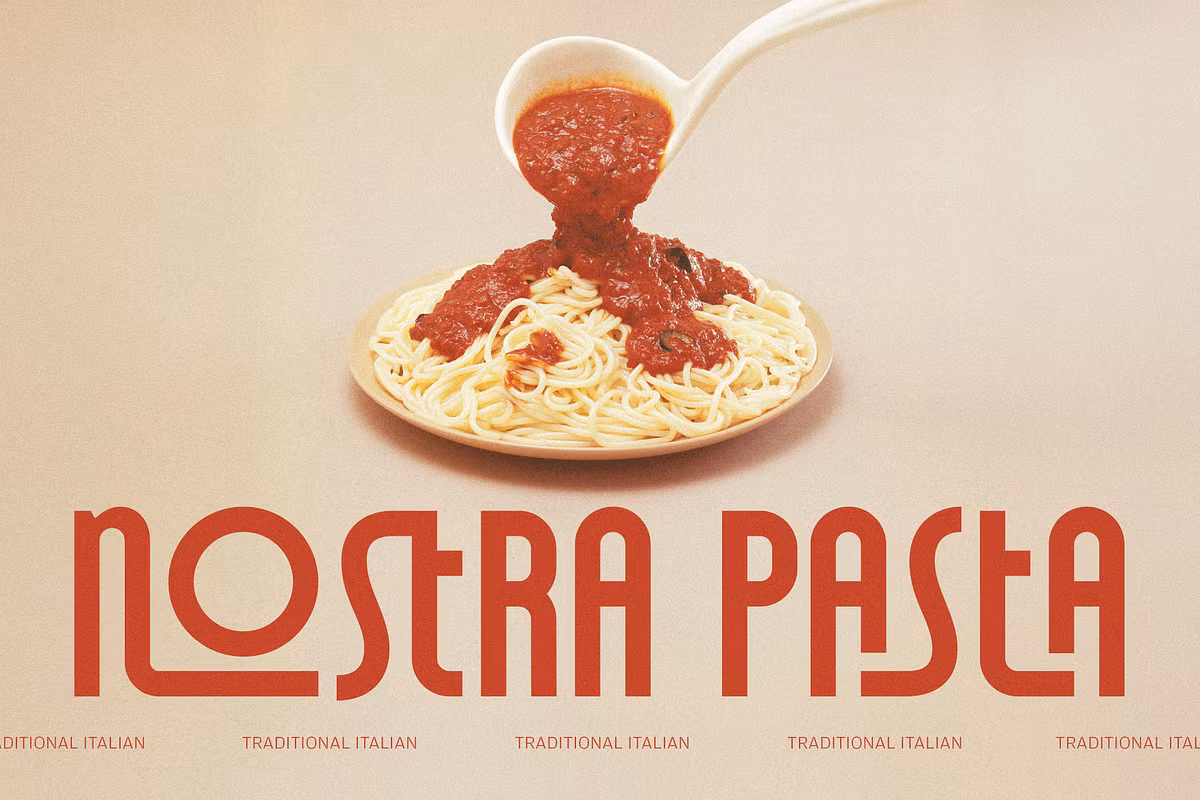
Sweet Lemonade Display Ligature Font
Sweet Lemonade Display Ligature Font: Retro-Inspired Typeface with 125+ Ligatures
The Sweet Lemonade font is a really cool, bold font that is perfect for making your designs pop. It’s like a fun, lively friend that adds a bit of nostalgia to your work. This font is great for lots of different projects, like posters, signs, and even just regular old documents. One of the best things about Sweet Lemonade is that it has a ton of special ligatures – over 125 of them! – which means you can make your words and letters look really unique and eye-catching.
It’s like having a big box of toys to play with, and you can use them to create all sorts of fun, expressive designs that will grab people’s attention. Whether you’re going for a retro vibe or just want to add a little excitement to your work, Sweet Lemonade is a great choice. It’s a modern font with a playful spirit, and it’s sure to bring a smile to people’s faces. So why not give it a try and see what kind of cool things you can create with Sweet Lemonade?
Example of Sweet Lemonade font in use
Example showcasing the Sweet Lemonade font style.
The style of Sweet Lemonade is really cool, it’s like a mix of old and new. The letters are big and bold, which makes them feel full of energy and excitement. This font has a classic look, but it’s also fresh and modern, so it works well in lots of different design projects.
Sweet Lemonade is a great pick for projects that need to feel young and fun. It’s got a special something that makes text look really cool. You can use it to make old-style posters or new branding projects – it’s a perfect mix of old and new. The way the letters connect makes it look really interesting and dynamic, which is great for making your project stand out.
Sweet Lemonade has a really cool feature – it’s got a huge collection of over 125 special characters called OpenType ligatures. These ligatures are like two or more letters that are combined into one single character, which makes the text look more flowing and nice to look at.
Visual representation of ligatures in Sweet Lemonade font.
This is great because it lets you present text in a more dynamic way, which is easier to read and nicer to look at. It’s like having a special tool that helps make your text more visually appealing.
So, you’re looking for a font that can handle lots of different languages, right? Well, Sweet Lemonade is a great choice because it’s got all these extra characters that let it work with Western, Central, and Eastern European languages. This makes it perfect for big brands or projects that need to be able to communicate with people all around the world.
The versatility of Sweet Lemonade makes it suitable for a wide range of design projects. Here are some of the most effective use cases:
• Logos: The bold and lively characteristics of Sweet Lemonade make it an excellent choice for crafting memorable logos that stand out in a crowded market.
• Posters: Posters really come alive with this typeface – it’s perfect for events, promotions, or just expressing yourself artistically.
• Branding Projects: If you’re developing a brand identity that embodies fun and youthfulness, Sweet Lemonade can communicate your message effectively through its unique visual style.
• Social Media Graphics: The playful nature of Sweet Lemonade is perfect for creating engaging social media content that resonates with audiences.
• Editorial Layouts: Its versatility allows for creative headlines and body text that can enhance the overall aesthetic of magazines, newsletters, or any printed material.
Sweet Lemonade font in branding projects
Sweet Lemonade font used in branding designs.
When you’re working with Sweet Lemonade, it’s a good idea to think about the fonts you’re using. Some fonts just go really well with it and can make your designs look even better. Let’s take a look at a few options that might work well.
When you put Sweet Lemonade with a classic font like Georgia or Playfair Display, it’s like mixing old and new styles together. This combination can make things look really interesting and catch your eye. The traditional feel of the serif font and the fresh, modern vibe of Sweet Lemonade can work well together, making your design stand out.
For a fresh and put-together look, try pairing it with a simple sans serif font, like Roboto or Open Sans – this will keep the focus on the fun parts of Sweet Lemonade, while also making sure everything is easy to read and understand.
You can use it to make logos, branding things, or social media graphics that really grab people’s attention. Sweet Lemonade gives your designs a unique feel, a nice flow, and a vintage touch that’s hard to find elsewhere. It’s like a breath of fresh air for your creative projects, so go ahead and have fun with it, and watch your designs come alive!